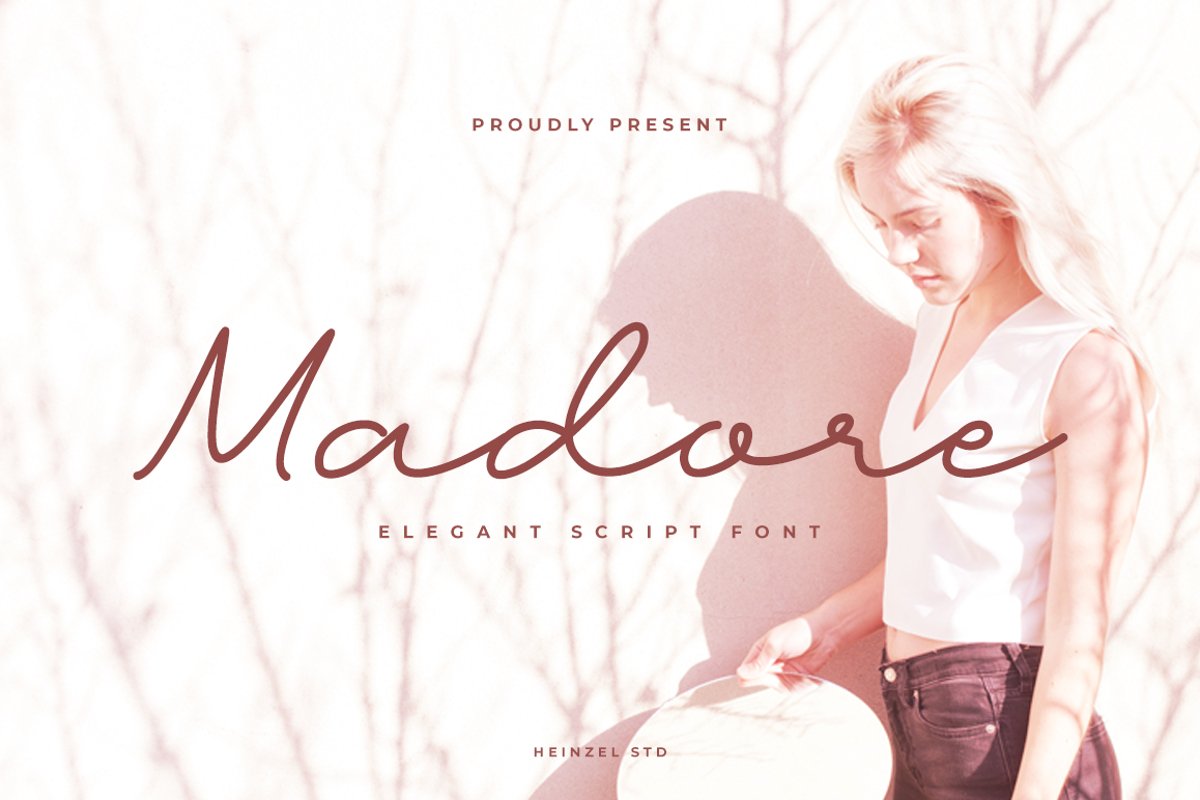
Madore - Modern Script, Canva Font
Madore
Madore is an elegant, flowing handwritten script. It maintains its classy calligraphic influences while feeling contemporary and fresh.
This versatility will appeal to a wide range of crafty ideas, from letterheads and titles, to stationery.
• Ligature tt